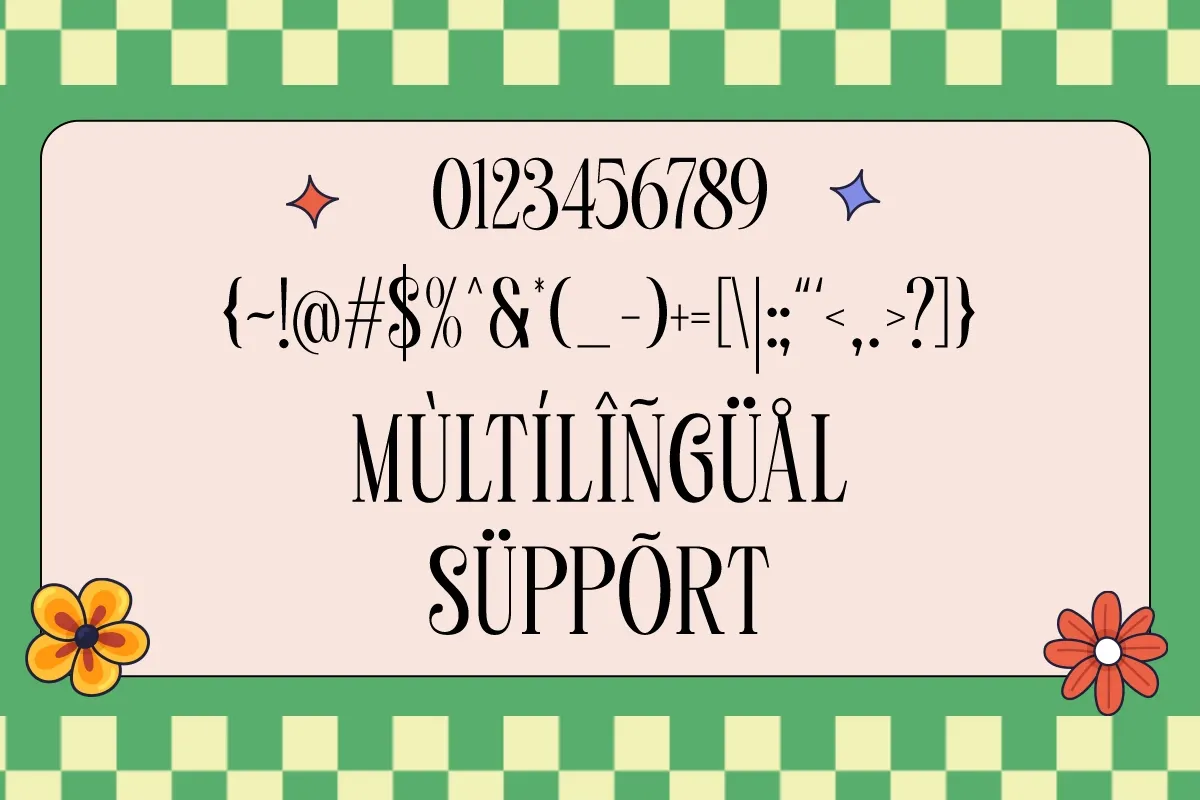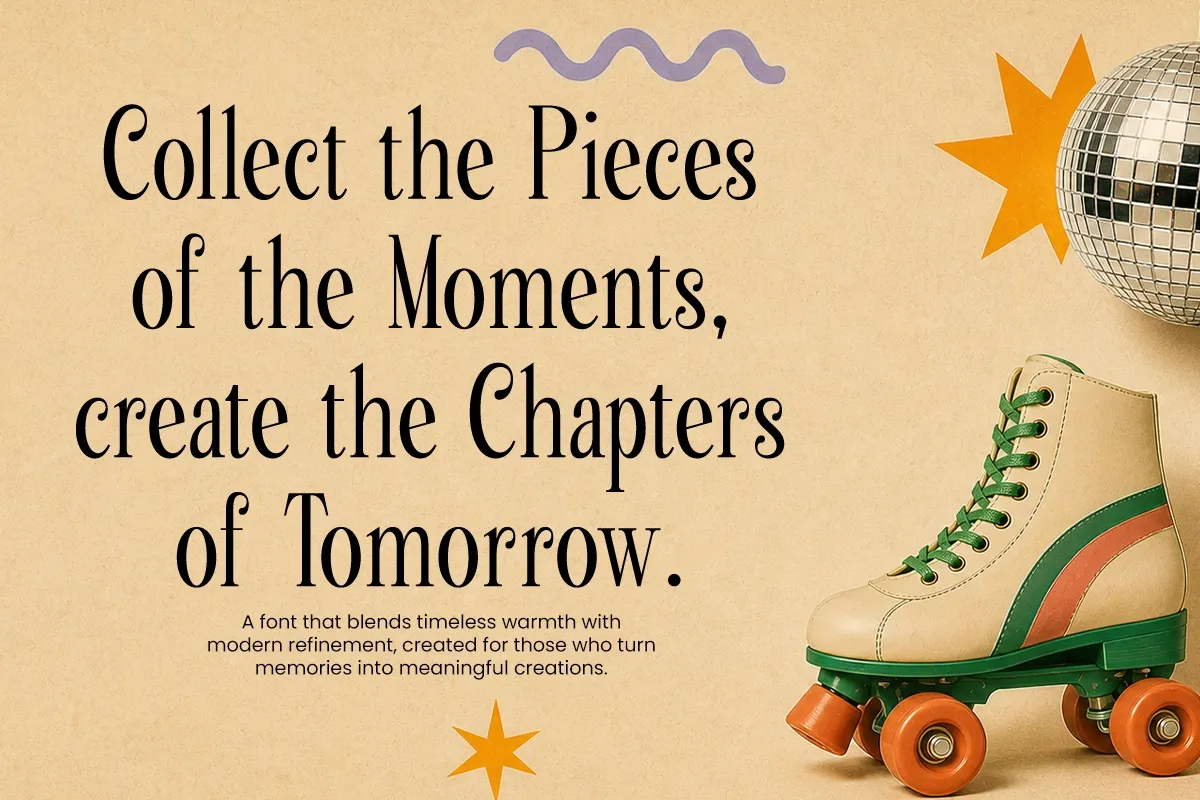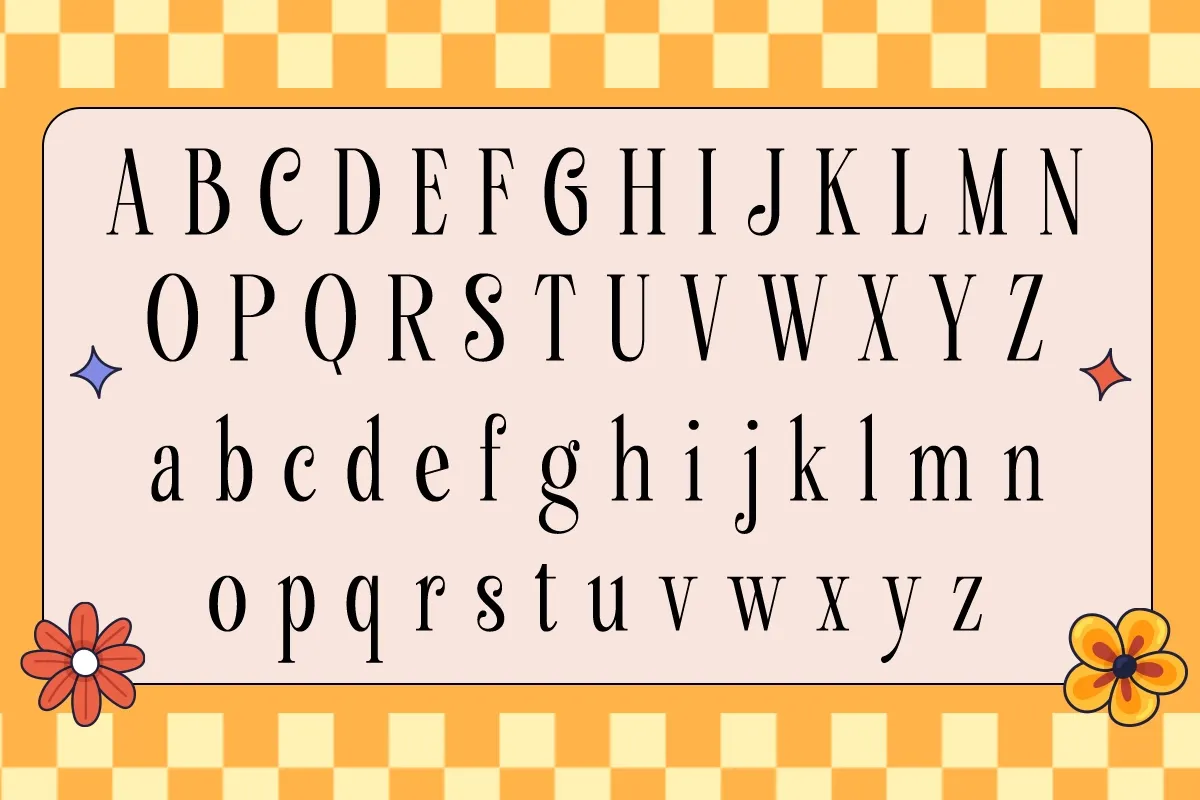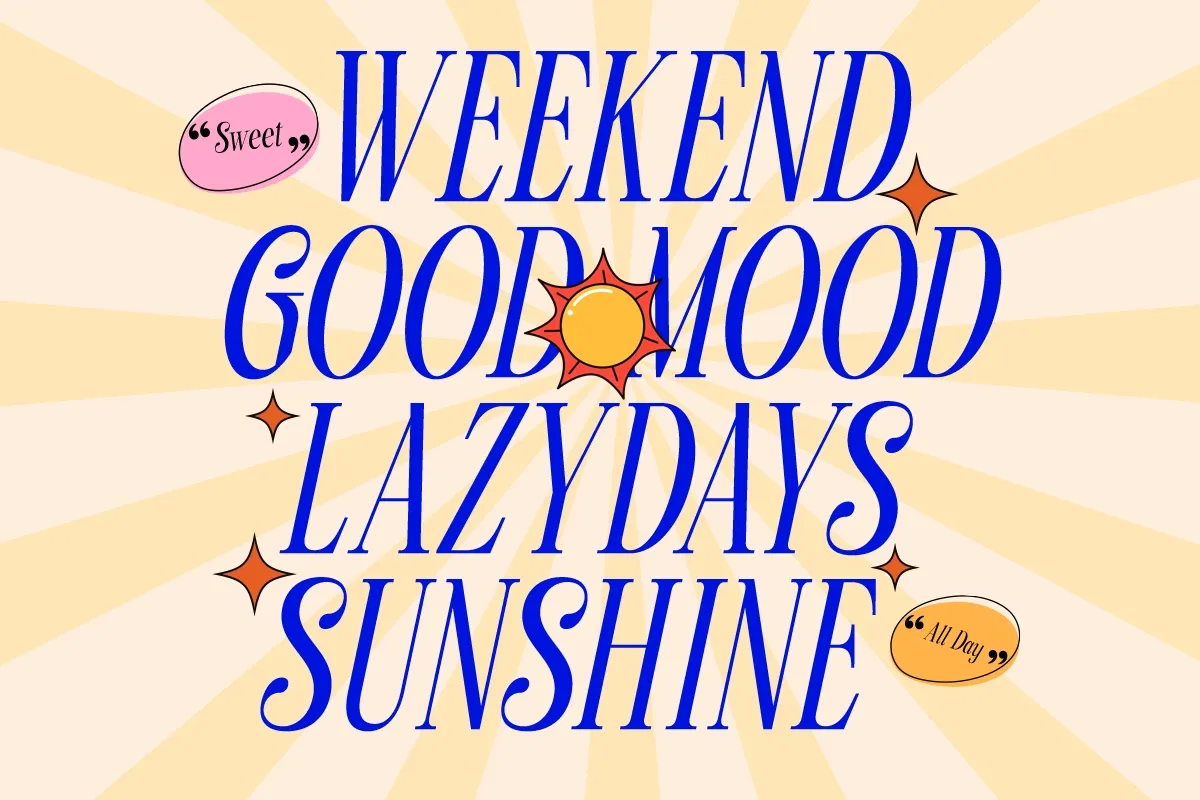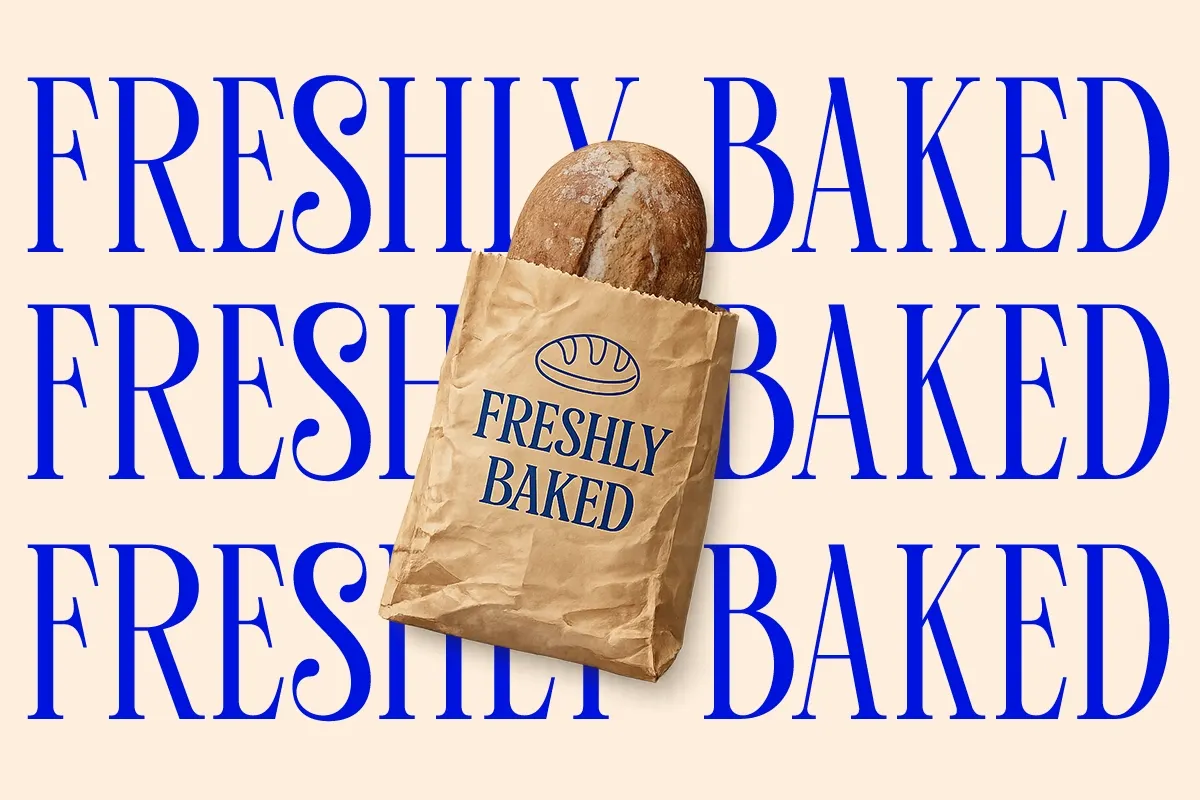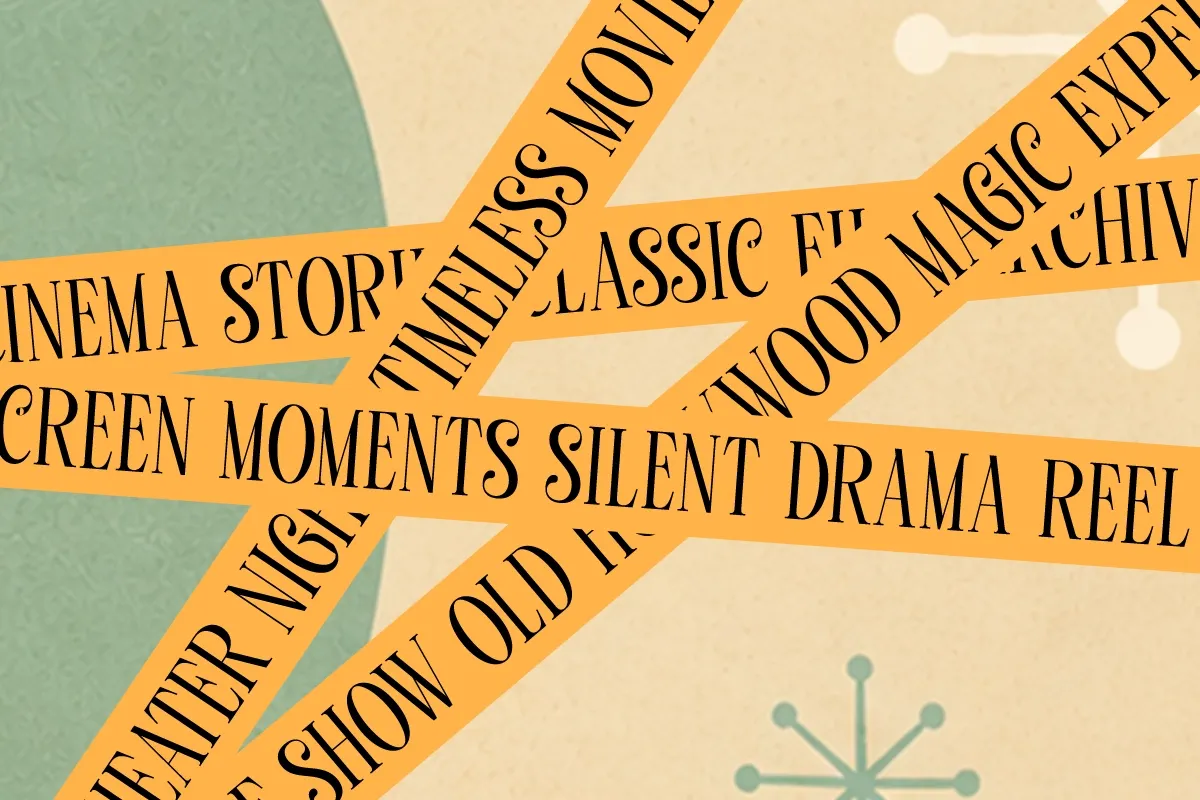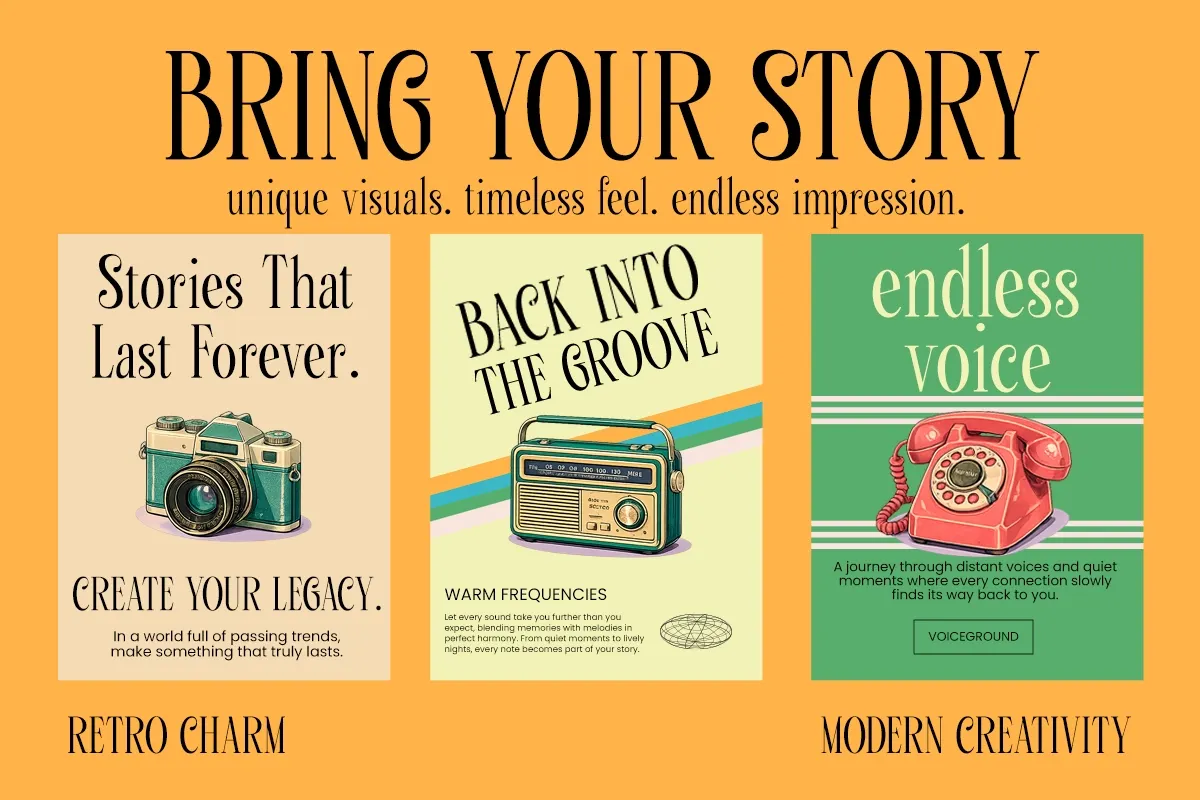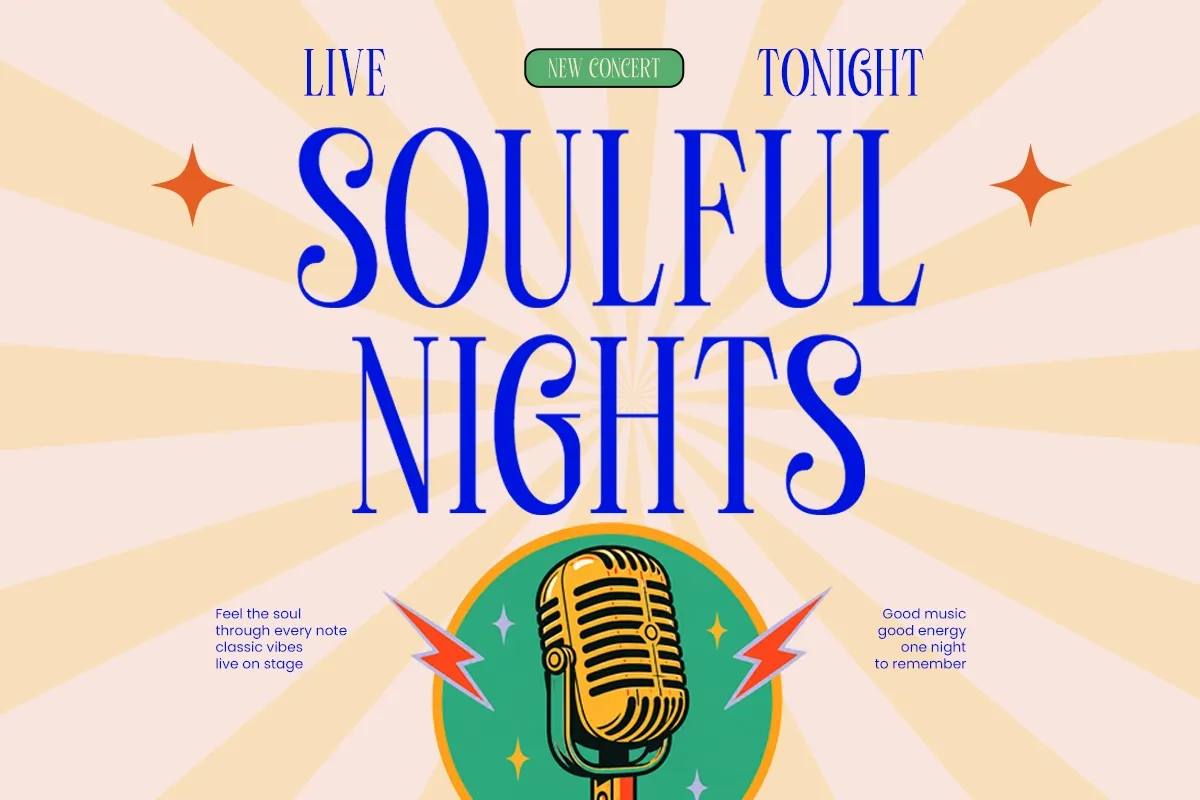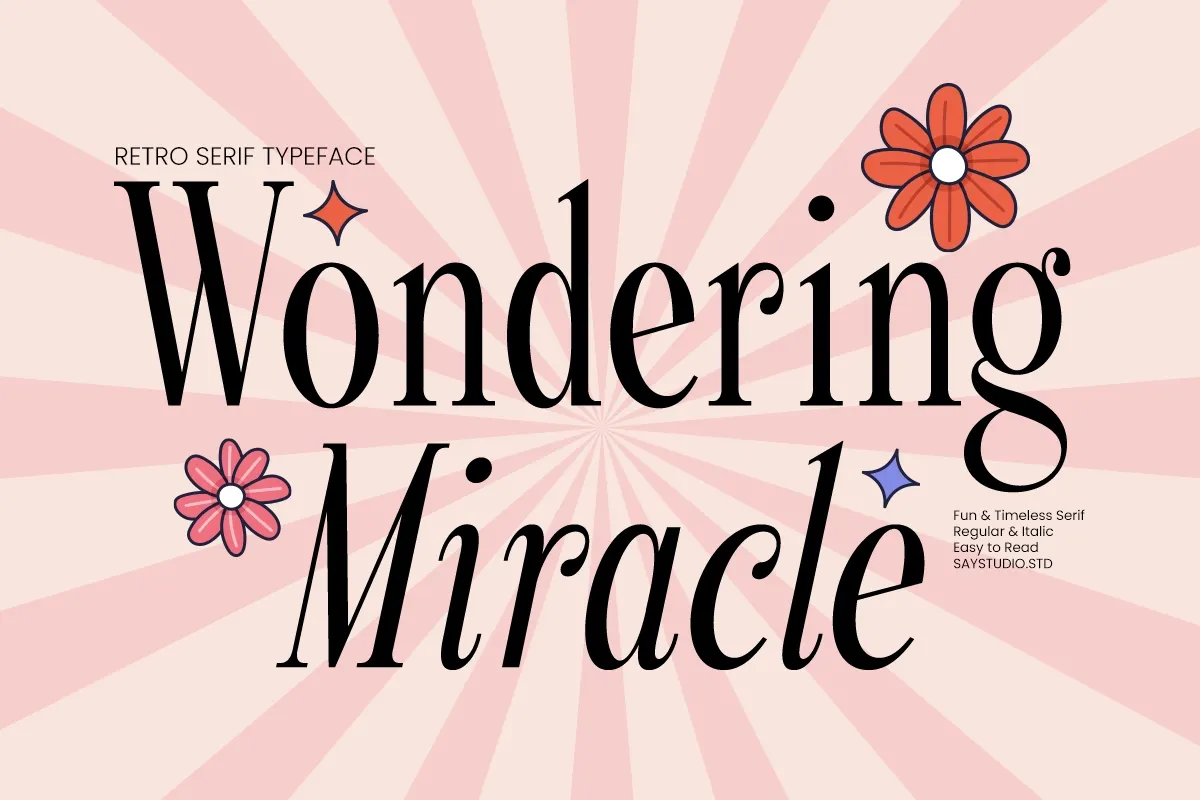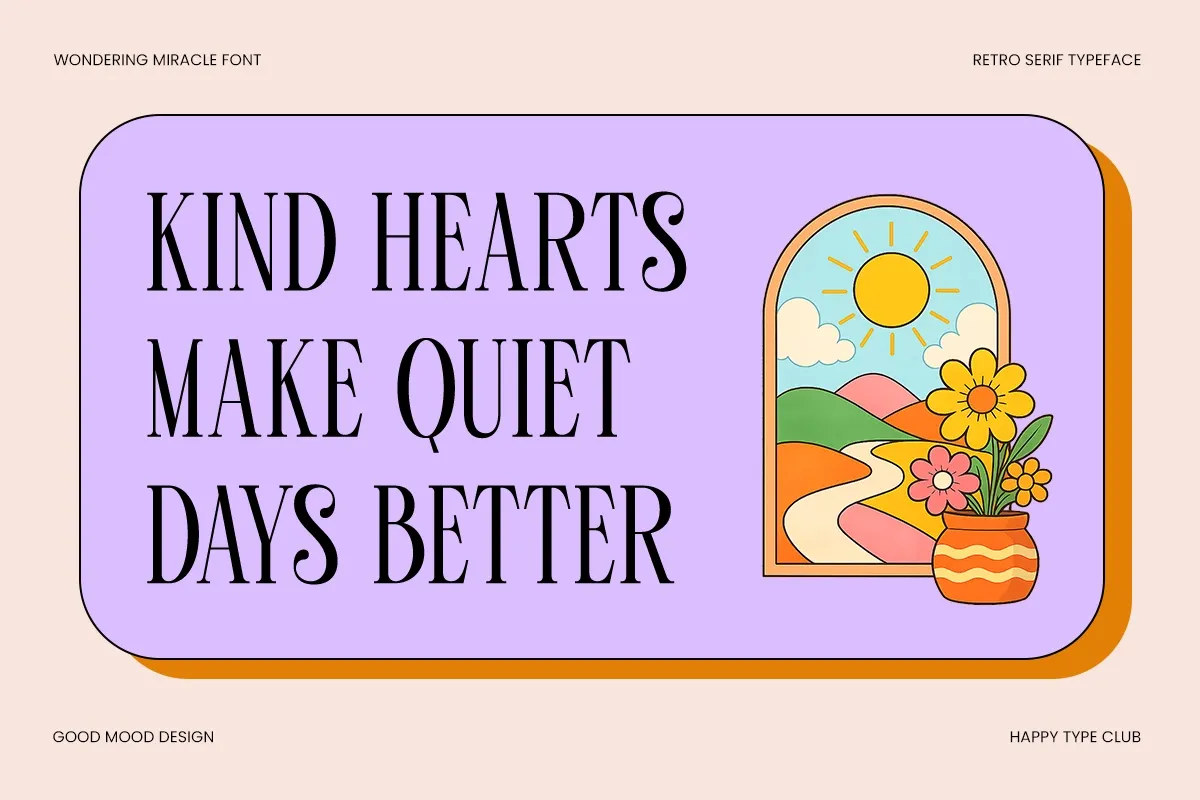
Wondering Miracle - Retro Serif Font
This retro serif typeface pairs tall high-contrast letters with slender curves, playful terminals, and a polished vintage rhythm. Its decorative style is graceful without getting fussy, making it useful for expressive titles, refined branding, and layouts that need charm with a little theatrical timing.
Wondering Miracle is made for boutique logos, editorial covers, beauty branding, product labels, packaging, invitations, posters, magazine spreads, social media graphics, music flyers, café menus, stationery, quote cards, and feminine brand systems. The Regular and Italic styles give designers room to set striking headlines, softer subheads, and elegant typographic accents across print and digital work.